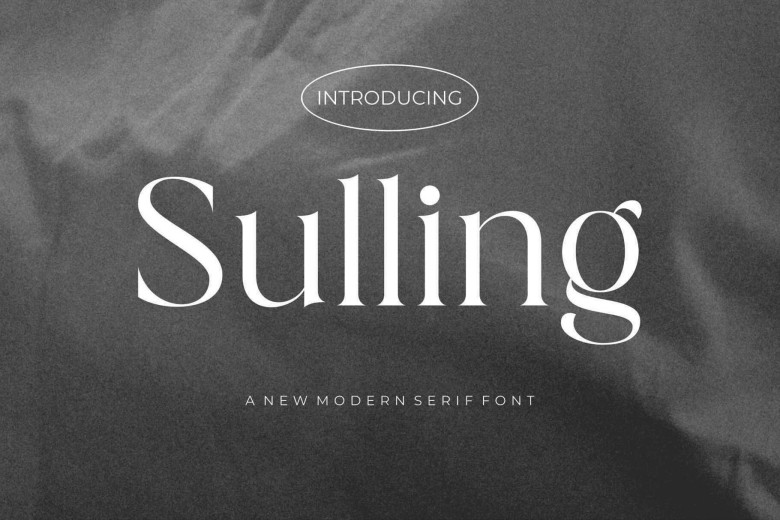
Sulling Font
Sulling is an elegant serif font whose smooth lines and balanced proportions give any design an air of sophistication, from editorial layouts to branding materials. Sulling elevates typography with classic elegance and grace.
Sulling Serif Font